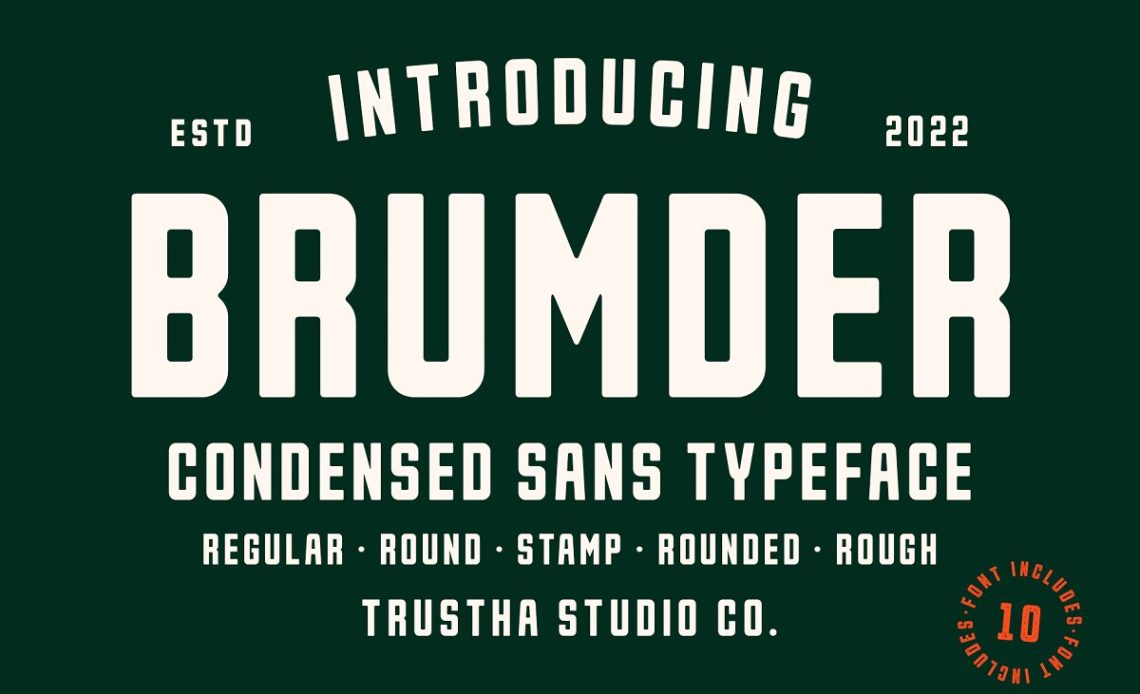
Looking for the best font for web page design? Look no further than Brumder Font! Created by Bagas Ardiatma, Brumder is a condensed sans serif typeface inspired by the industrial style, perfect for branding, headlines, and more.
Brumder comes in several styles, including regular, round, rounded, rough, and stamp, each with matching oblique, making it 10 styles in total. Whether you're looking for a sleek and modern look or a more vintage feel, Brumder has a style that will suit your needs.
With features like uppercase and lowercase letters, numbers, punctuation, and symbols, as well as stylistic sets and international characters, Brumder is incredibly versatile and adaptable to any project. And with both OTF and TTF files, you can use it on any platform or device.
But what really sets Brumder apart is its emotional impact. With its strong, bold lines and industrial-inspired design, Brumder conveys a sense of strength and reliability. It's a font that demands attention and commands respect, making it perfect for any project where you want to make a bold statement.